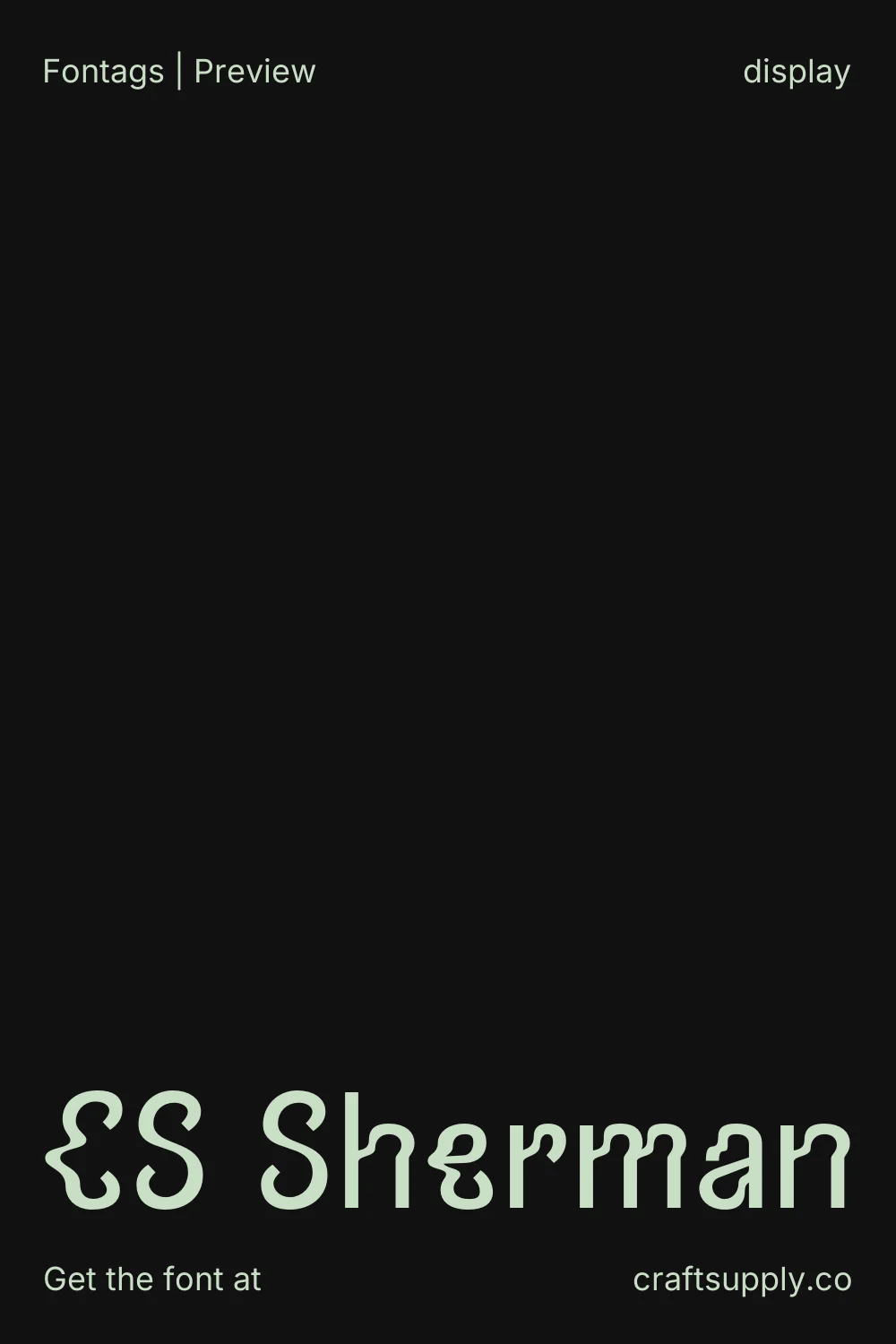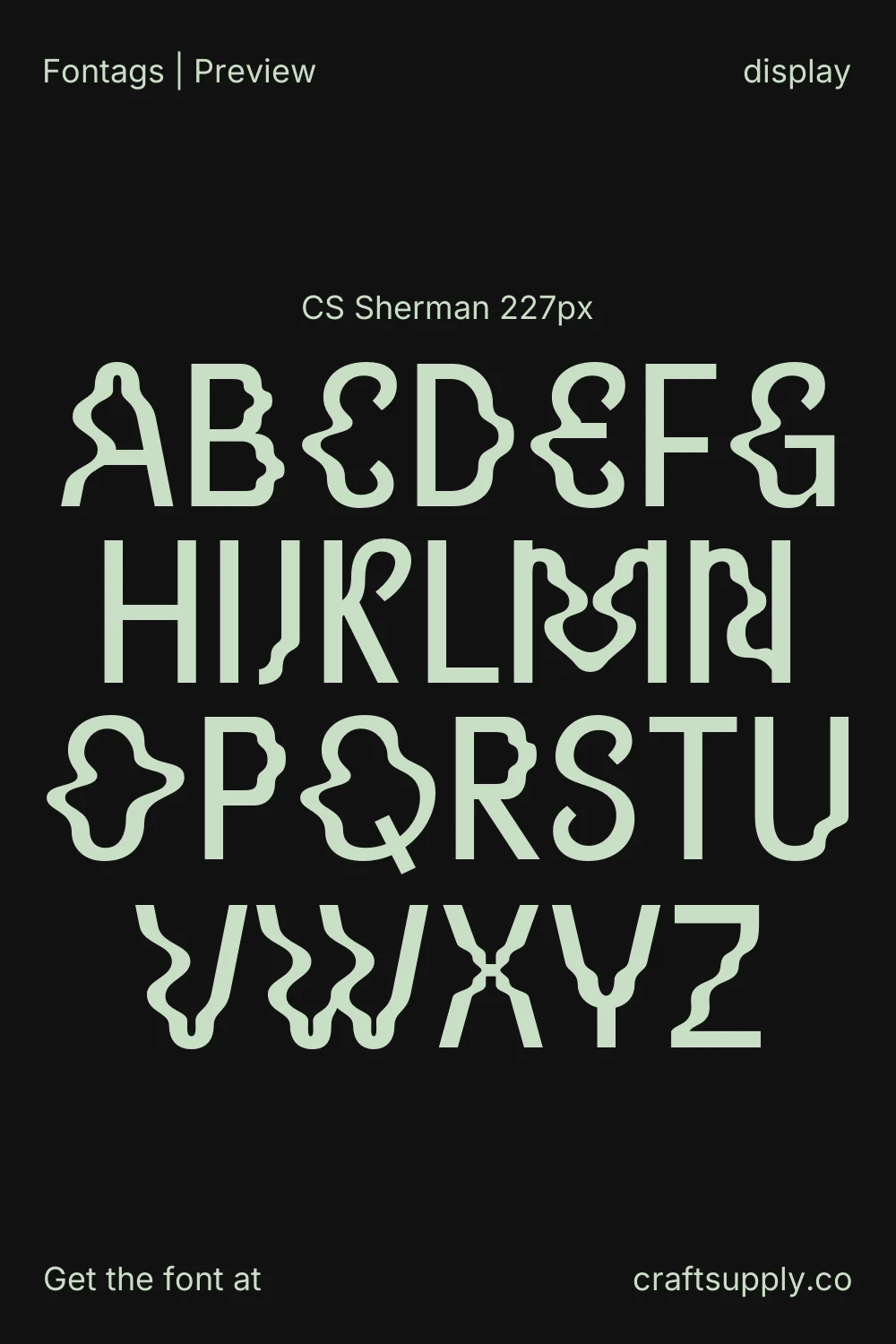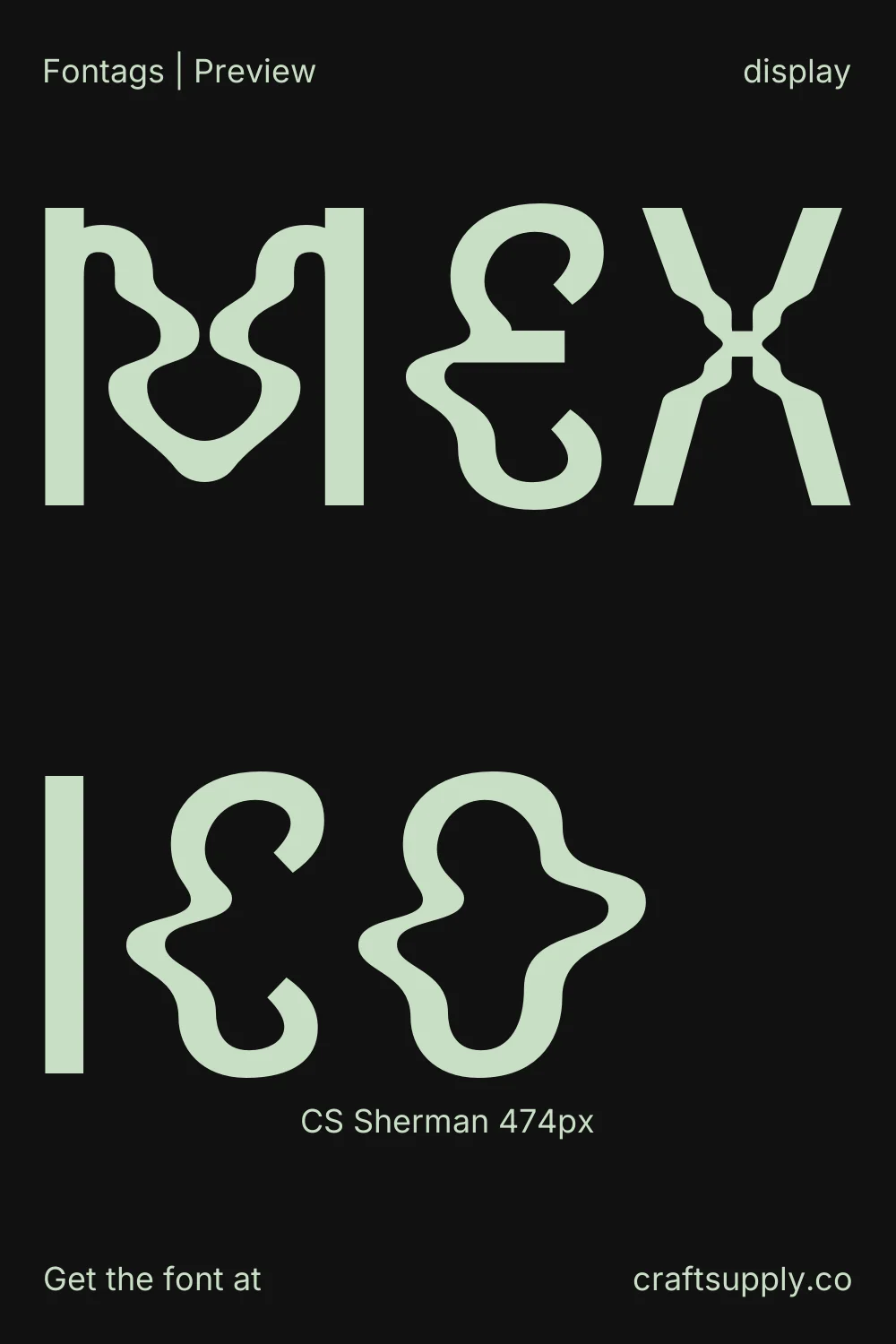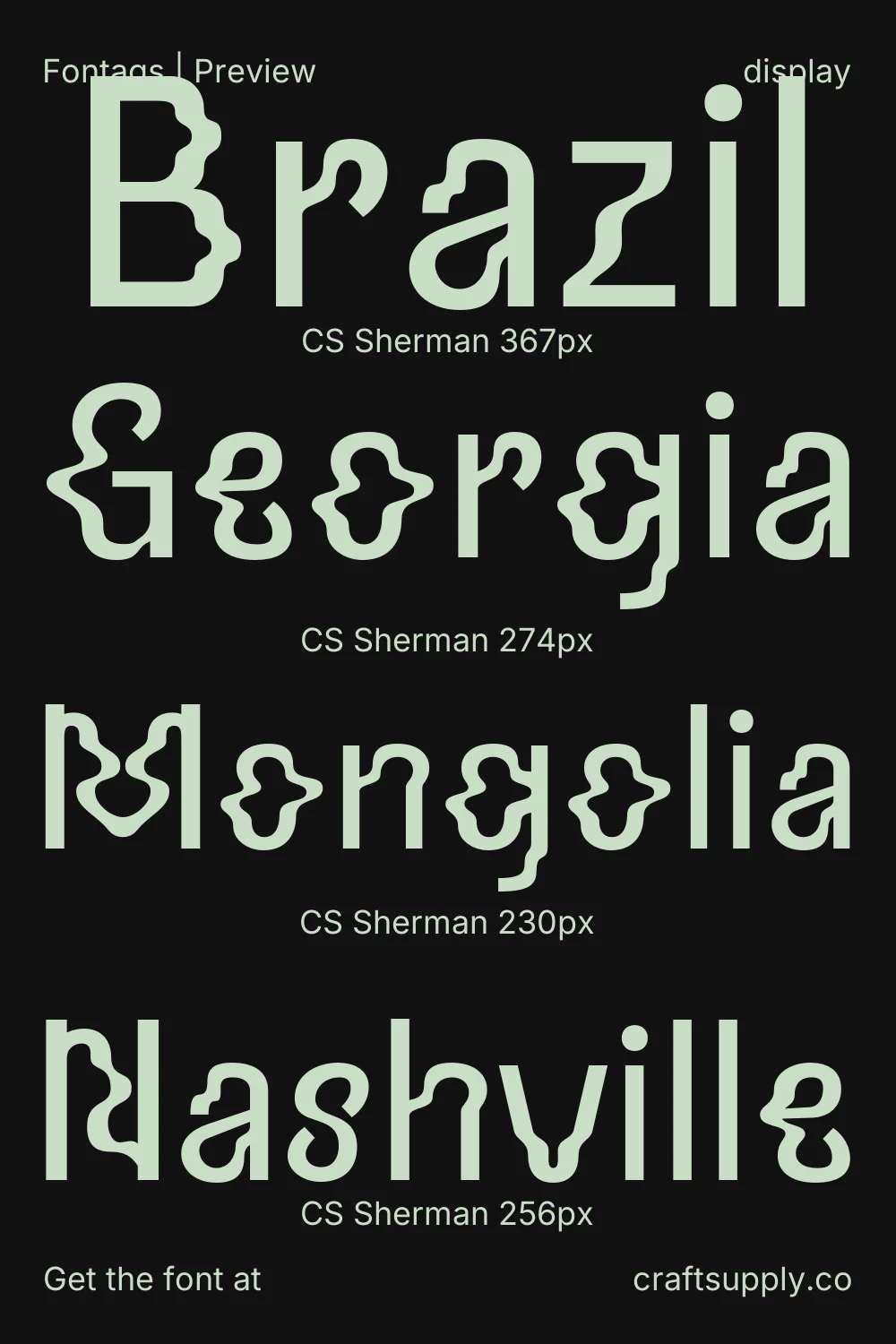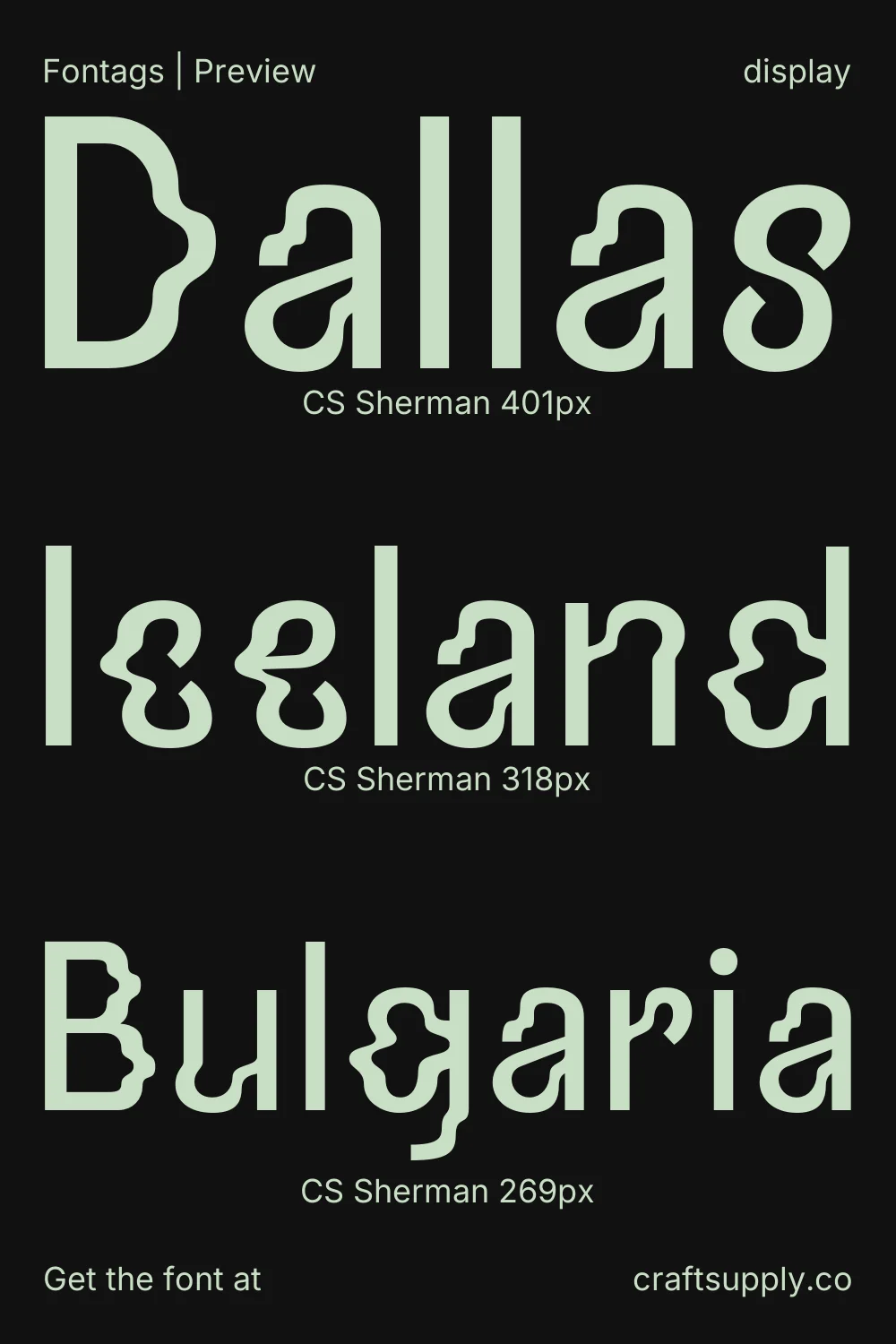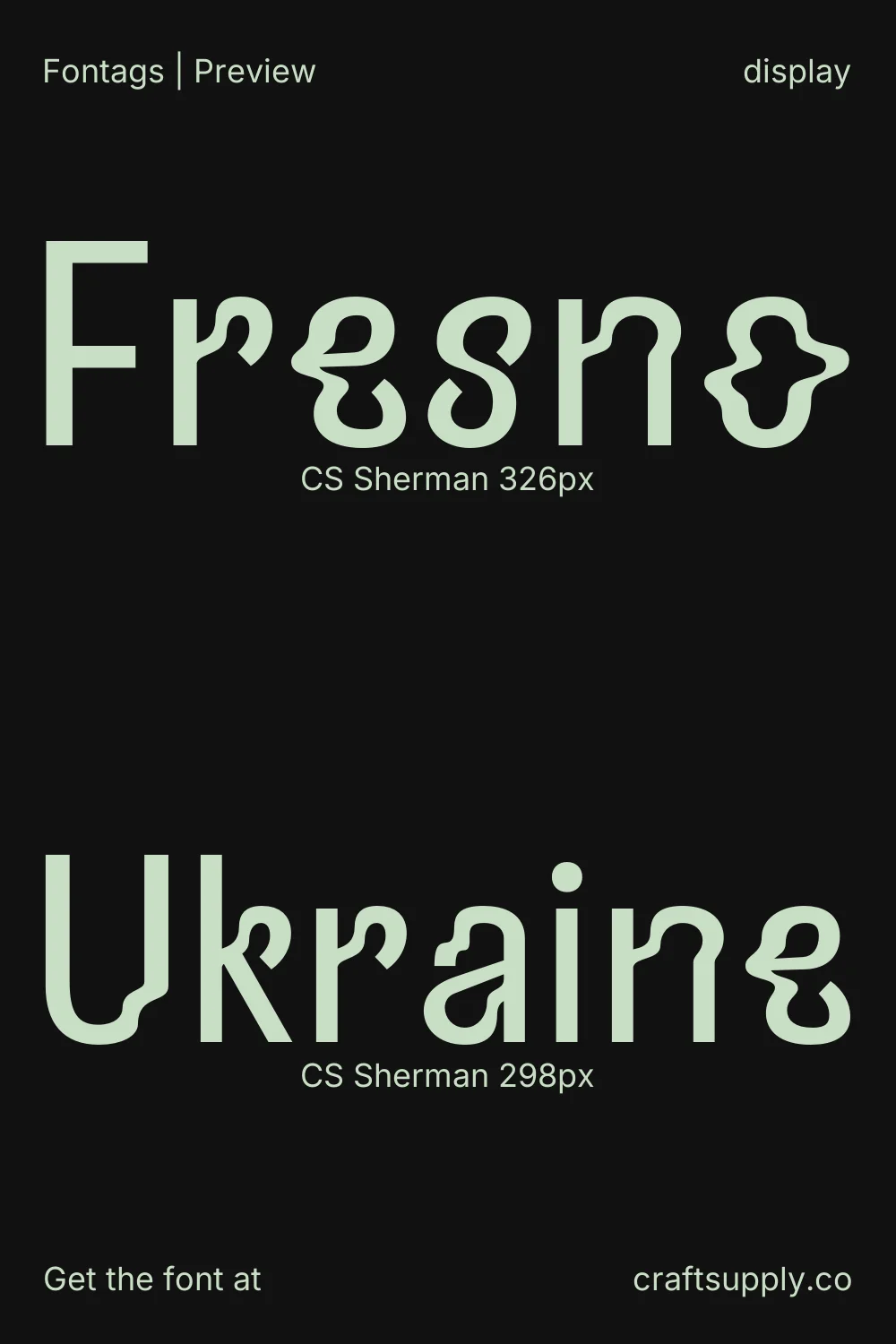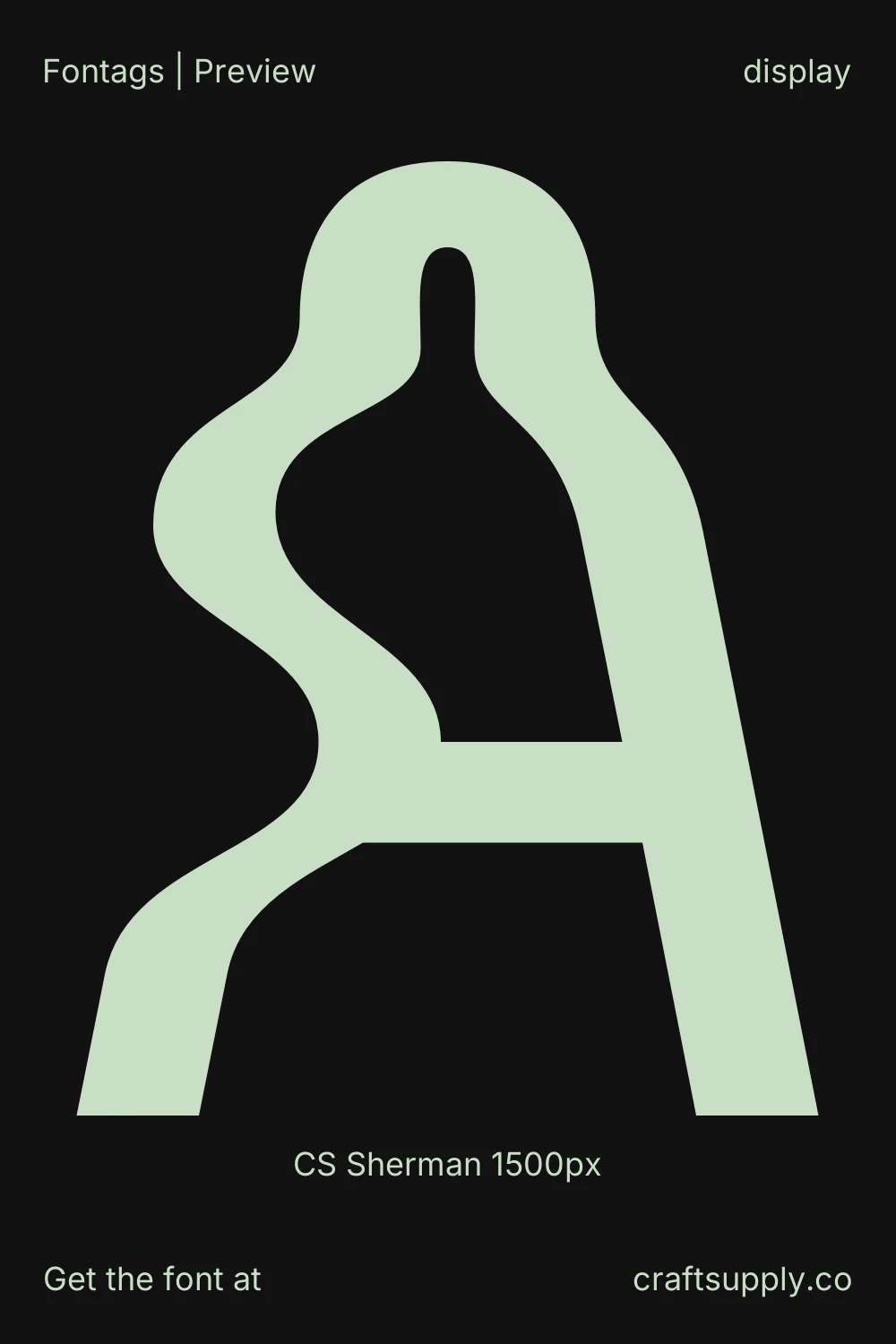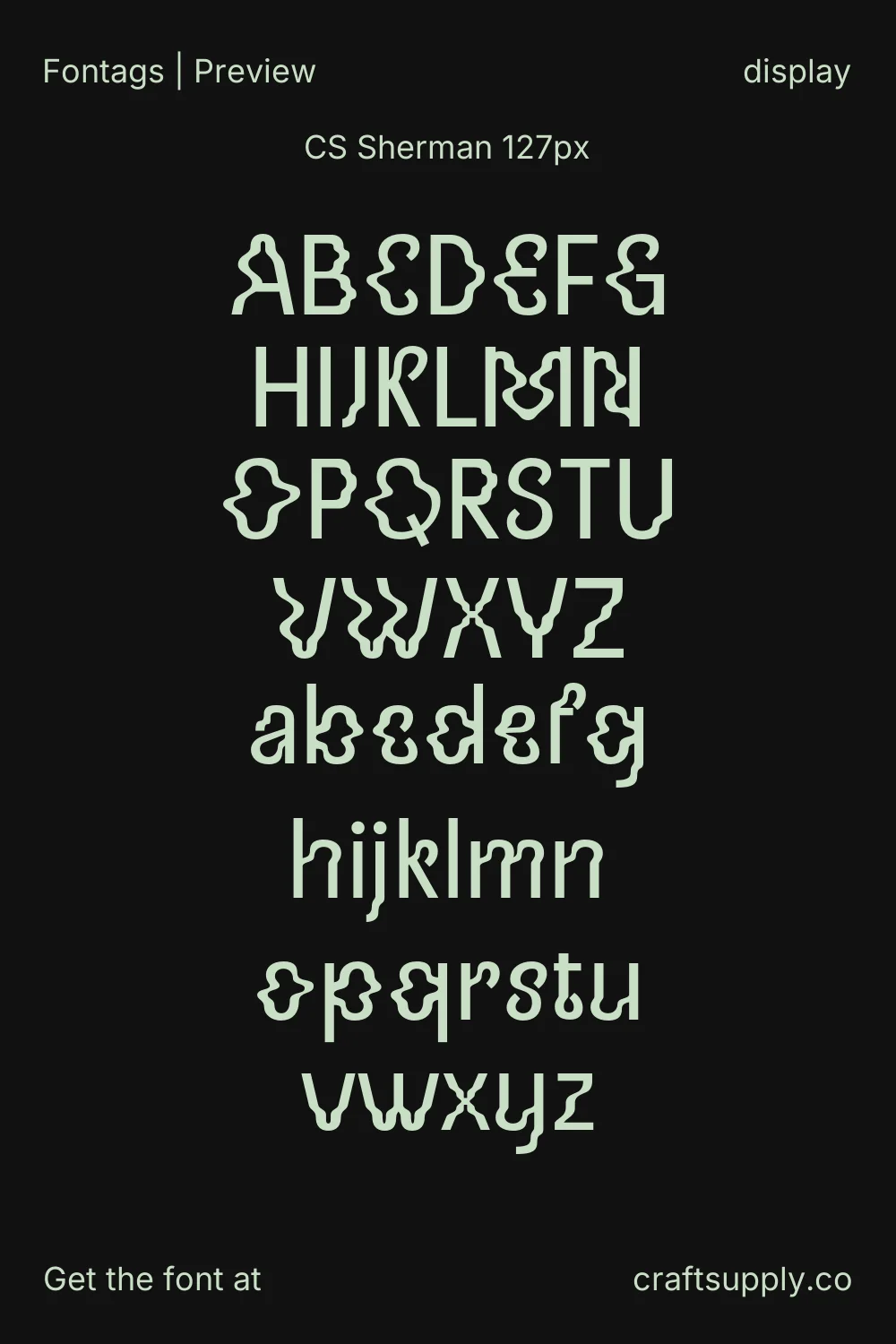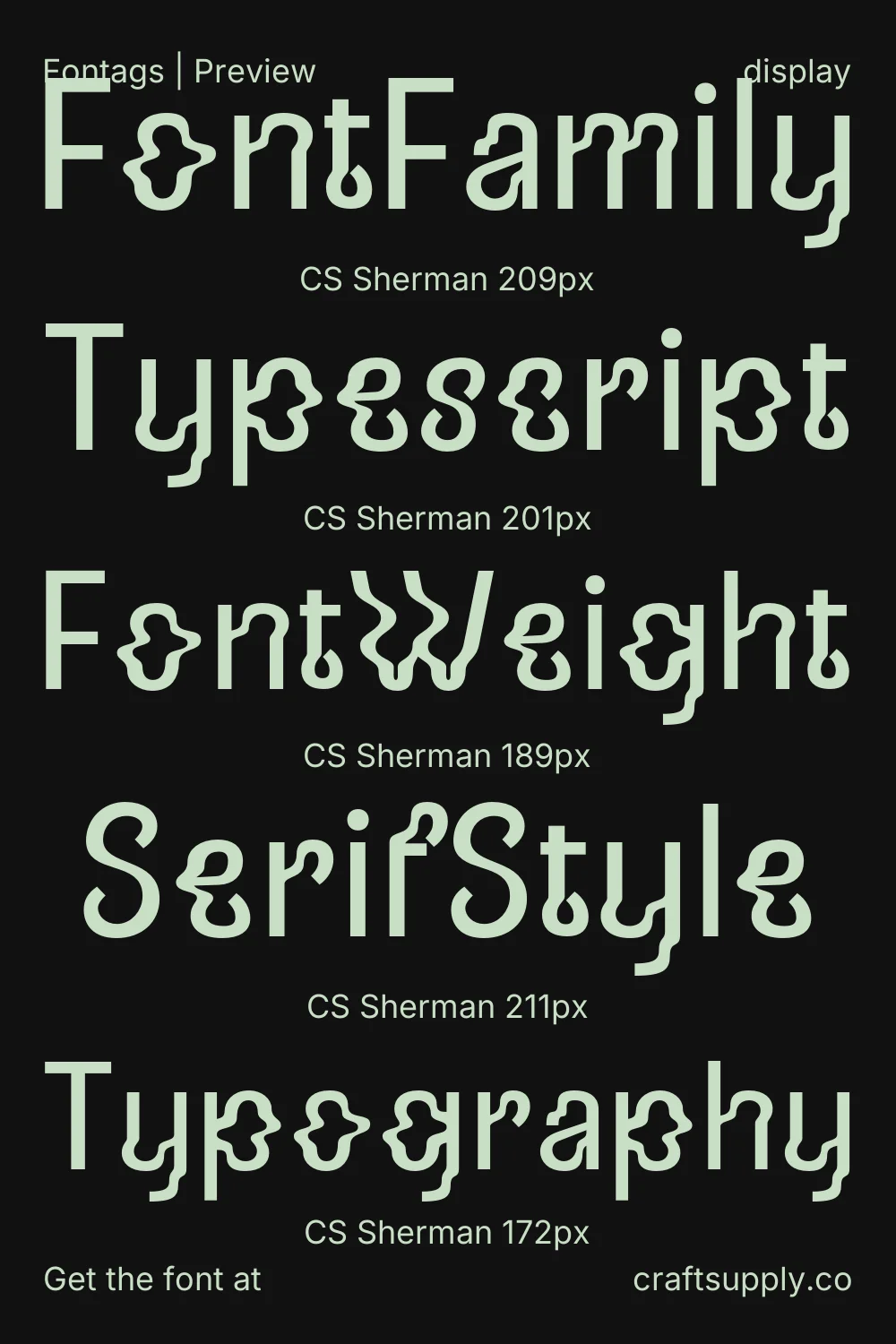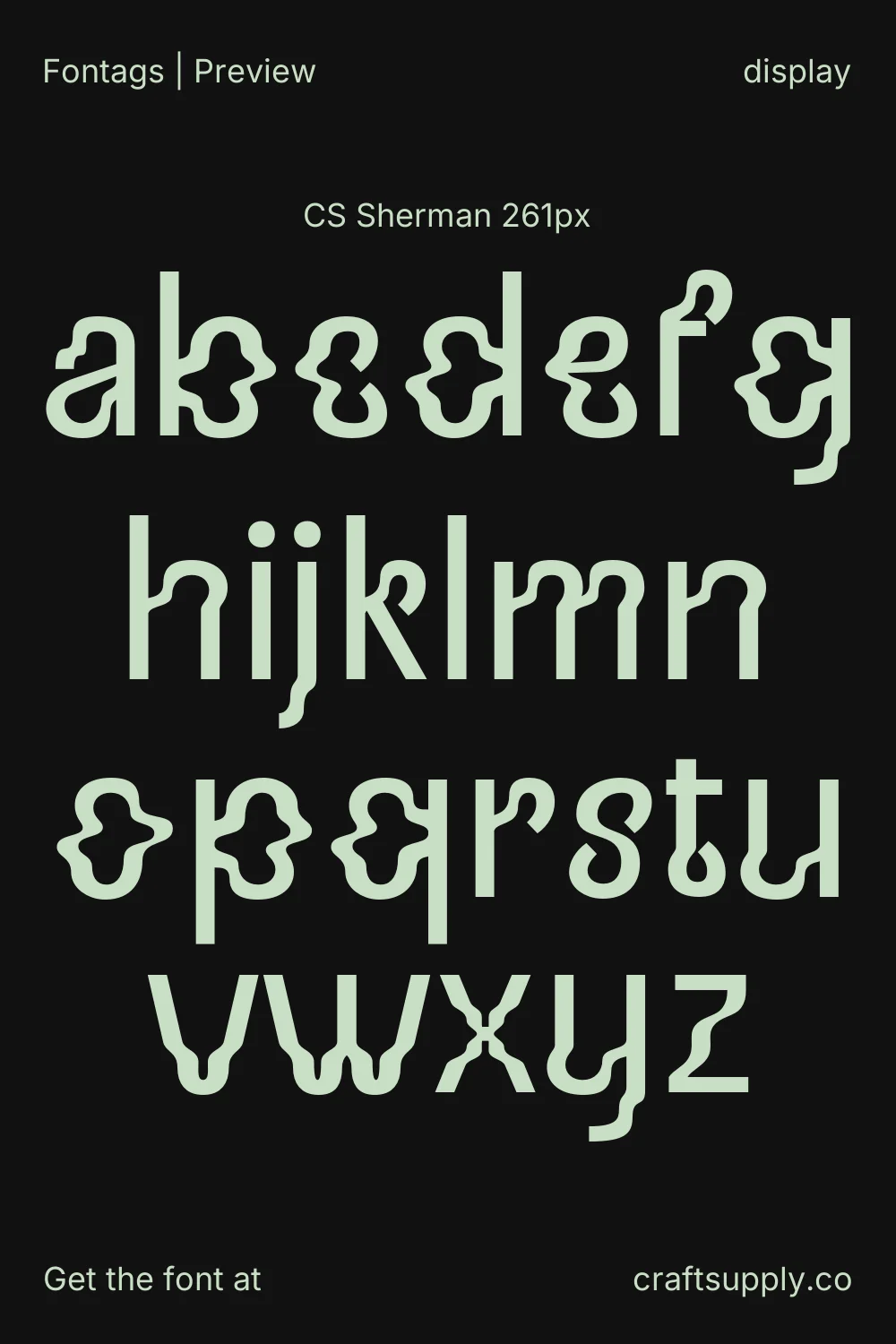
CS Sherman
CS Sherman is a modern sans-serif display font with a trippy, psychedelic style. Its curving, warped letterforms create an energetic and playful look that stands out. Perfect for music posters, festival promotions, album covers, and experimental designs where bold, unconventional typography is needed.